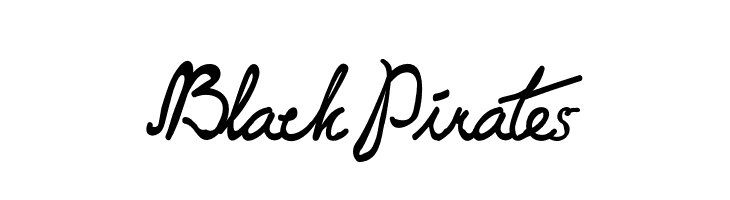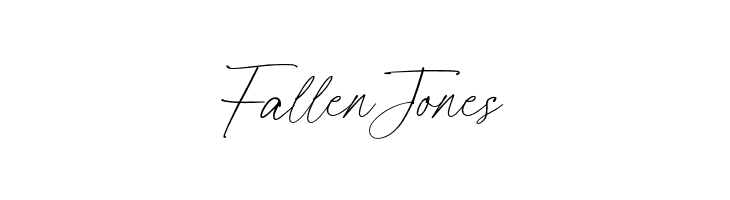
A modern, elegant script font with fluid, handwritten strokes.
An elegant italic font with thin strokes and a modern, dynamic style.
A bold, 3D italic font with a futuristic and dynamic design.
A bold, 3D shadow font with geometric, blocky characters.
A bold, playful font with a hand-drawn, rounded style.
A cursive, handwritten-style font with elegant, flowing strokes.
A bold, geometric font with outlined characters for a modern, impactful look.
A bold, geometric font with an industrial, block-like design.
A playful, handwritten font with rounded, casual letterforms.
A futuristic, digital font with a bold, geometric design and gradient line effects.